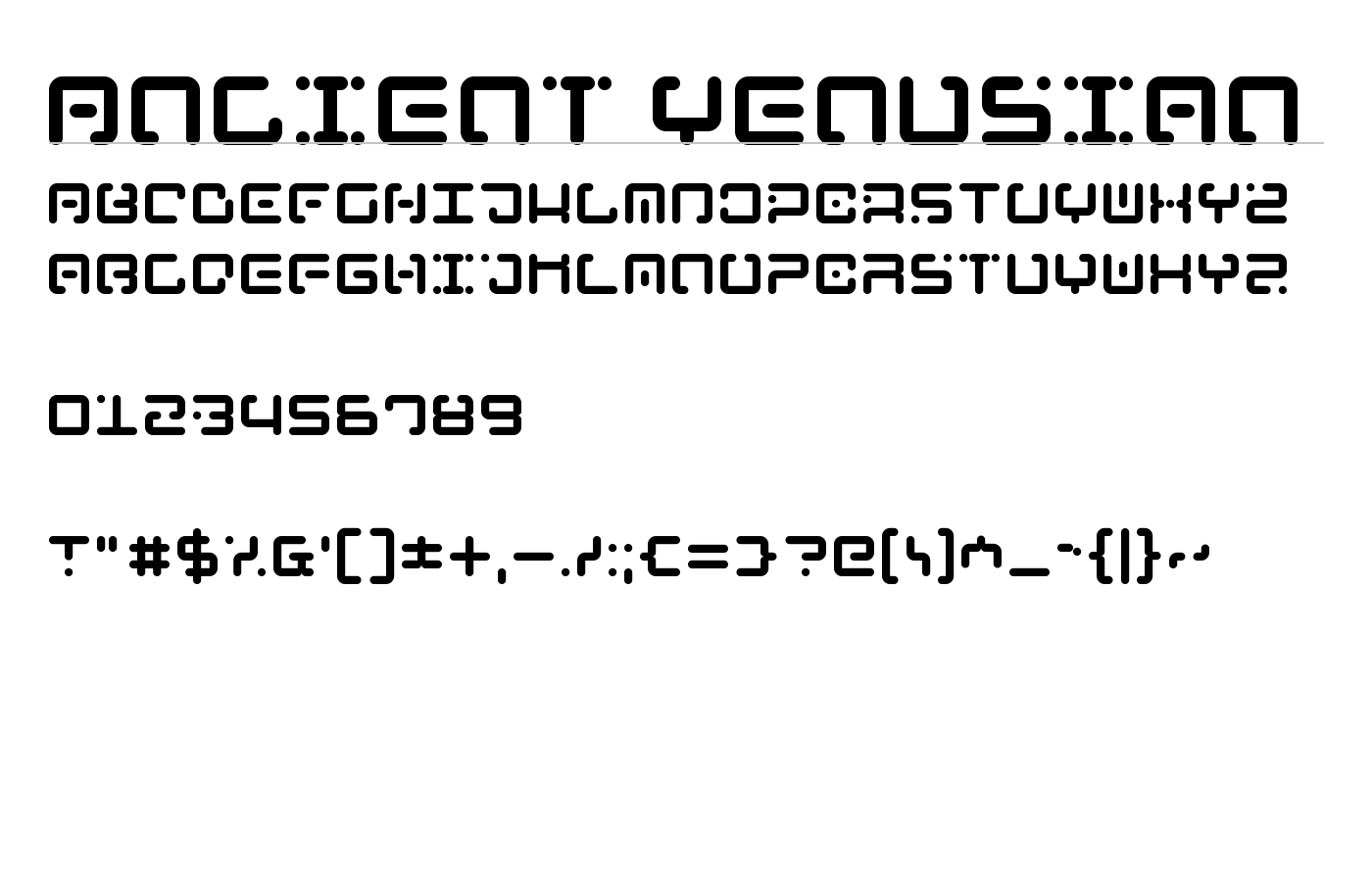
Ancient Venusian is a bold, geometric sans serif font with a futuristic, sci-fi feel. Its unique rounded shapes, square skeleton, and dot accents give it a tech-inspired, playful personality, perfect for creative projects that want to evoke a sense of otherworldly or digital innovation. This font works best in logos, posters, and headlines where its distinctive style can stand out and grab attention.
Ancient Venusian Font
About Ancient Venusian Font